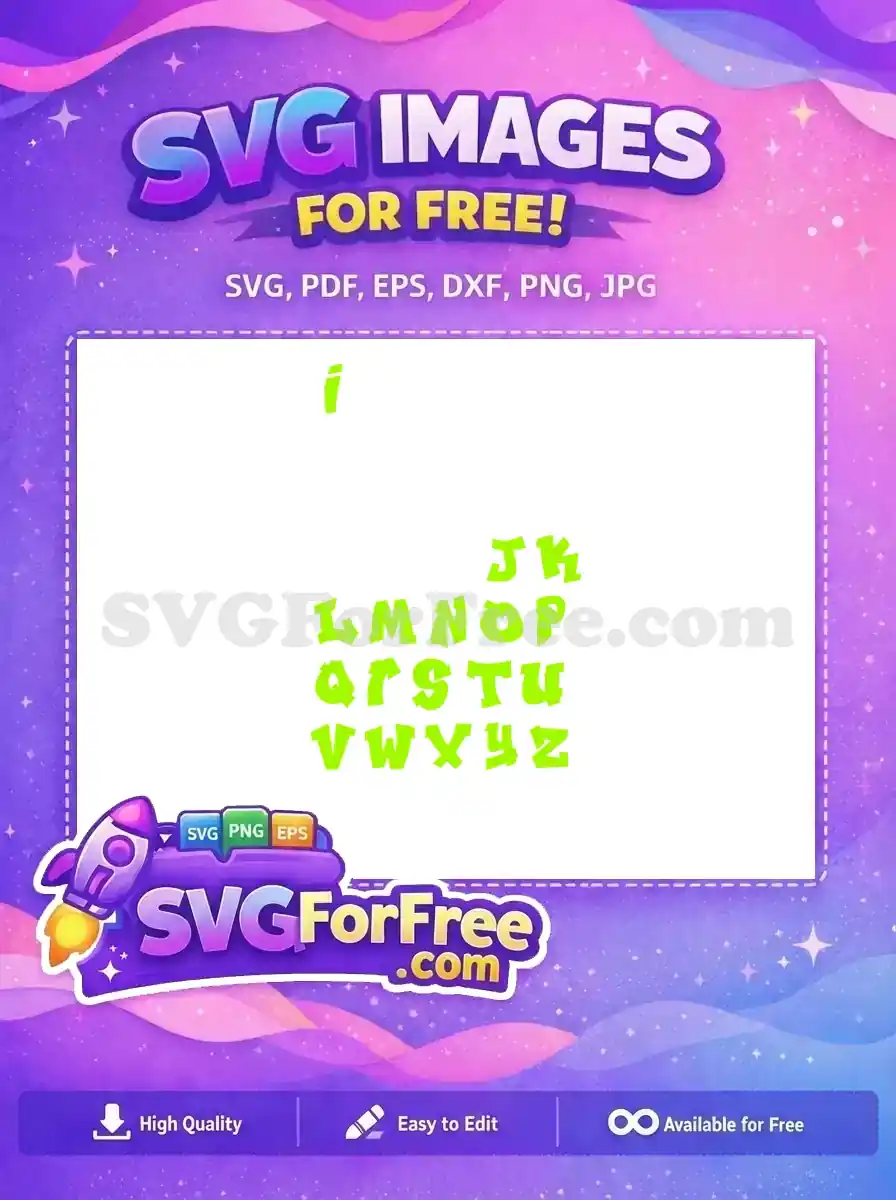
A vibrant, free neon graffiti font featuring bold, green letters, perfect for eye-catching designs and projects.
Free Neon Graffiti Font Free Alphabet Green Letters Free SVG